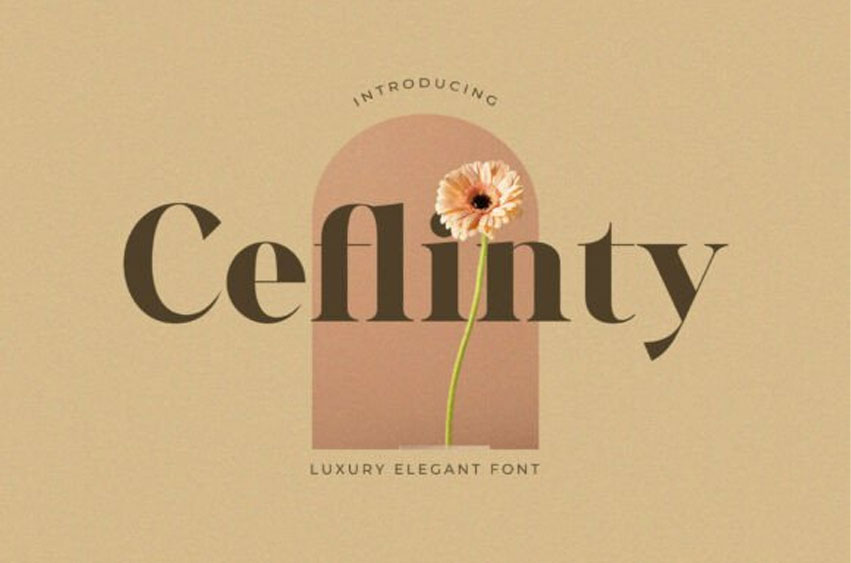
Ceflinty Font
Ceflinty Font is a luxury serif font that brings elegance and warmth to every project. Its bold contrast, sleek lines, and soft curves create a harmonious balance perfect for beauty branding, editorial layouts, invitations, and product packaging.
Sophisticated yet approachable, Ceflinty adds a refined, artistic charm to your visual storytelling.